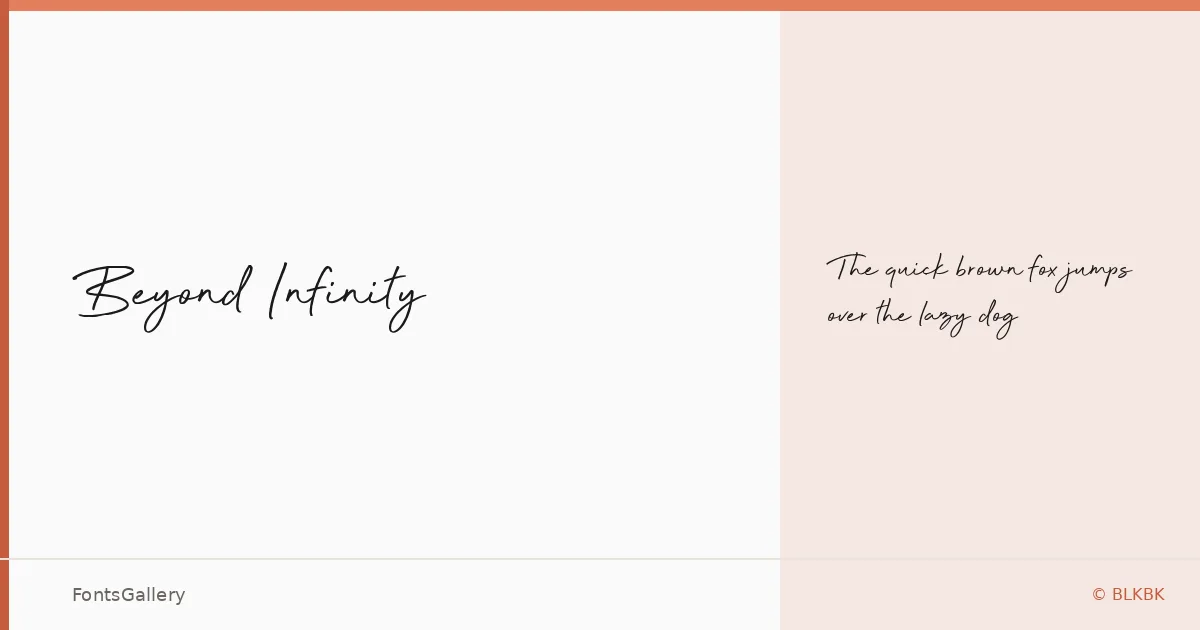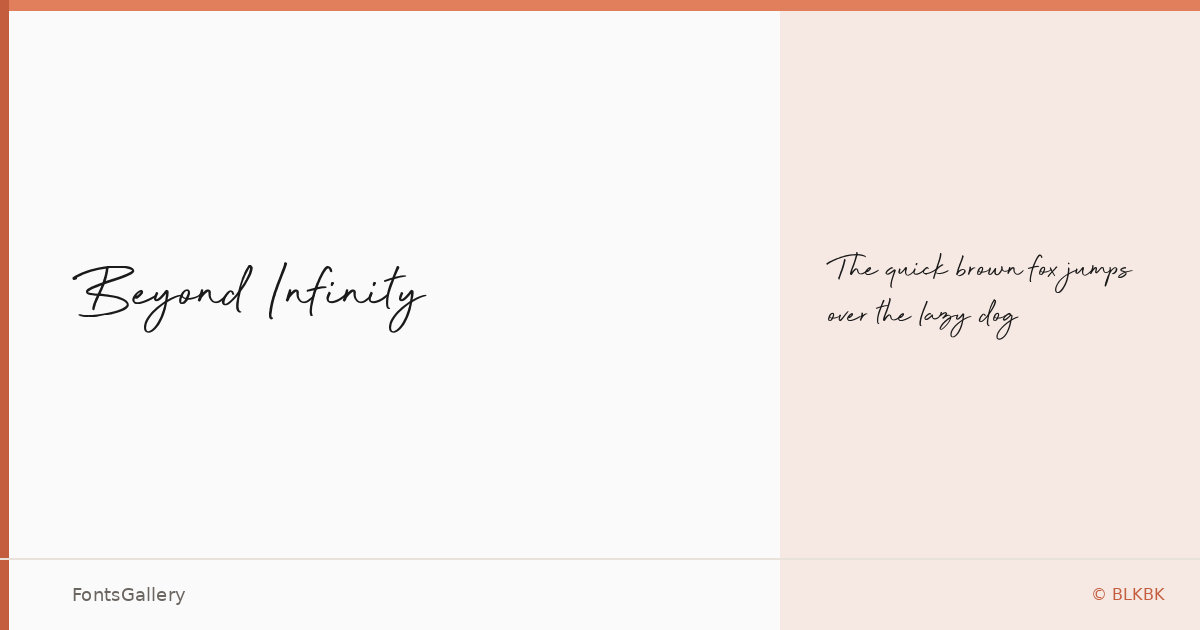
About Beyond Infinity Font
There is a particular ease in the way this handwritten script moves — unhurried, with the kind of flowing strokes that lean romantic without tipping into fussiness. It comes from BLKBK, the type studio behind blkbktyp.com, and it arrives as a single Regular weight in TTF format.
Classic and elegant in character, the script carries a mood that suits formal occasions as naturally as it does more intimate, personal projects. The letterforms have a calligraphic warmth — connected strokes, gentle rhythm — that makes it feel handcrafted rather than mechanical. Coverage is Latin.
It reads well wherever refinement is expected: wedding stationery, invitation cards, greeting cards, and logo treatments that need a handmade quality. Social media headers and branding visuals with a romantic tone are equally well served. For contrast, it pairs with Canela and Anglecia Pro on the serif side, and with Helvetica or Abrade when you want a clean sans to anchor the composition; AQUA offers a more expressive alternative pairing.